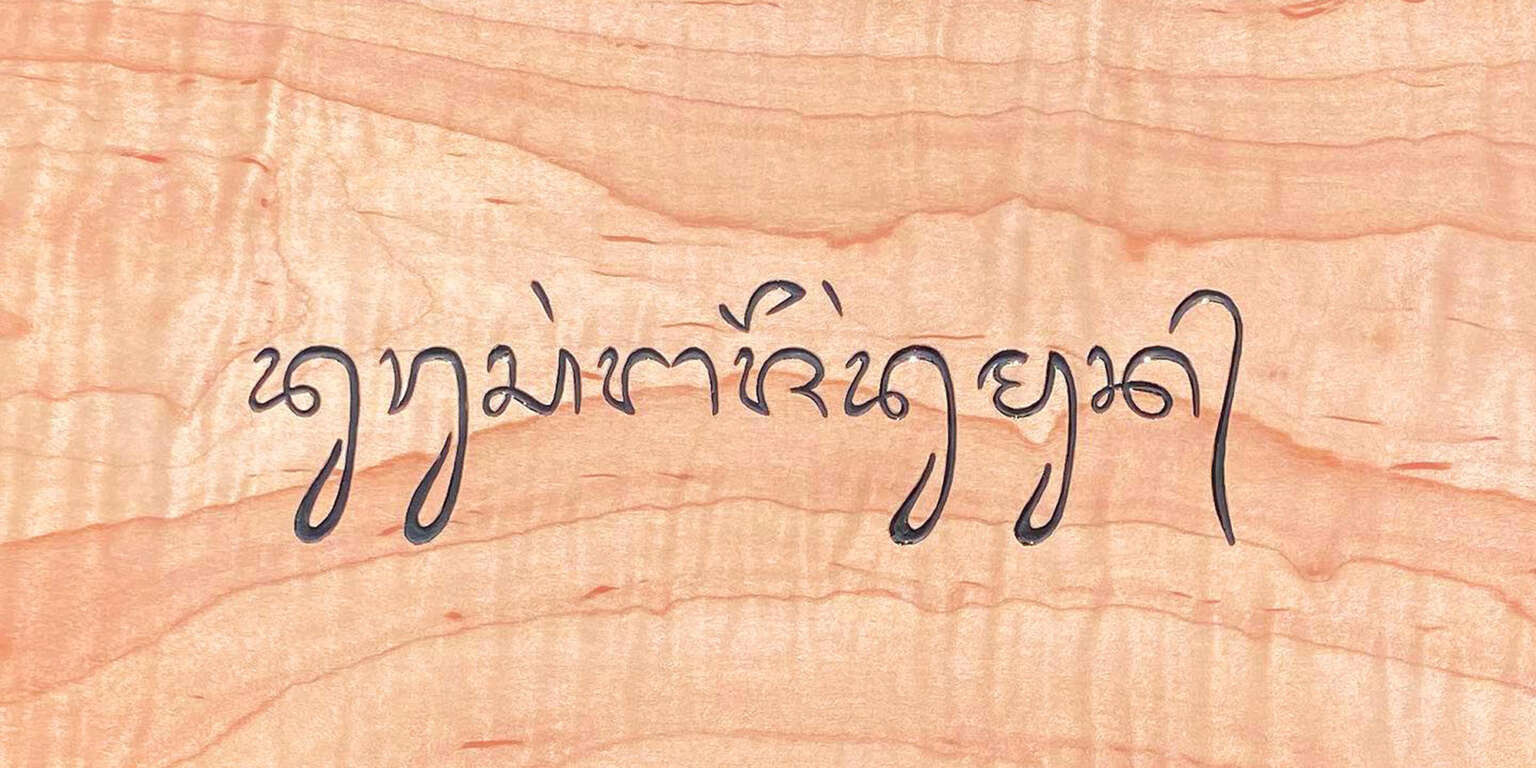
Endangered Alphabets: Beyond the Borders of Writing
You’ve never seen writing like this. You may not even recognize it as writing. Your loss—and the world’s.
For the past 16 years, Tim Brookes has been searching the world for the least-used and most marginalized forms of writing—and then advocating for them and their communities, carving them in beautiful woods, and asking questions like “Why would someone want to destroy an alphabet?” “What happens when a people can no longer use their script?” and the most deceptive of all, “What is writing, anyway?”
An editor, guitarist, teacher, soccer coach and author of 20 books and numerous articles and essays, he founded the Endangered Alphabets Project in 2010 with his first exhibition of carvings in indigenous and minority scripts.
Since then he has exhibited and spoken about the Endangered Alphabets at more than 150 colleges, universities, libraries, museums, and galleries including Oxford, Cambridge, Yale, Harvard, the Smithsonian Institution and the Library of Congress, while working with a wide range of cultures to create games and educational materials for learning and promoting minority scripts.